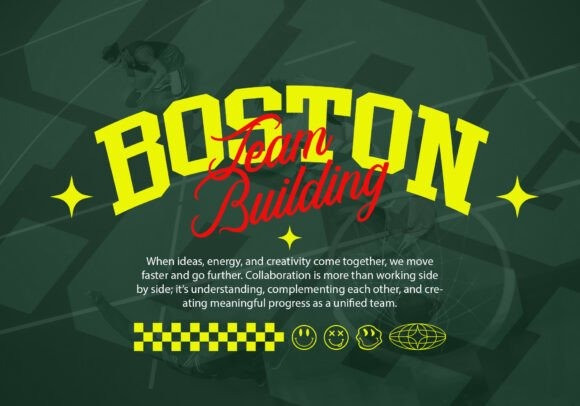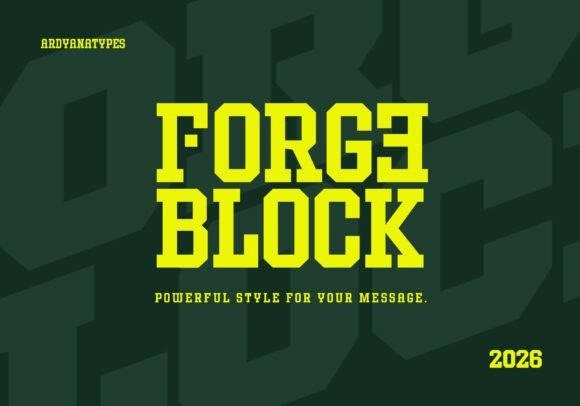
Forge Block Font
Forge Block Font is a bold display typeface designed to deliver strength, confidence, and visual impact. Inspired by industrial, sports, and modern branding aesthetics, this typeface features solid construction, sharp edges, and powerful proportions that demand attention instantly.
Built for designers who need typography that speaks loudly, Forge Block is perfect for headlines, posters, branding, sports graphics, esports, technology projects, product packaging, and digital promotions.